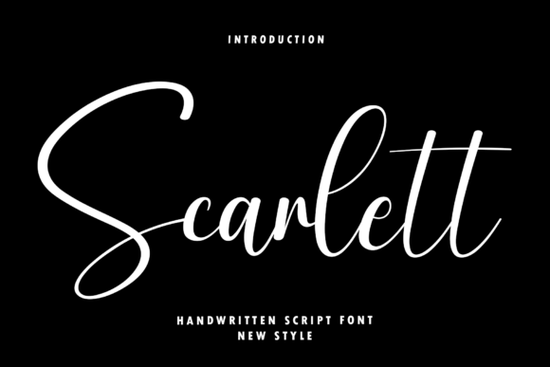
If you've been searching for a script font that looks like a real handwritten signature but still feels polished, the Scarlett Font is worth a close look. It's a modern calligraphy-style typeface with tall ascenders, sweeping loops, and a natural flow that reads as both elegant and personal. Whether you're working on wedding invitations, a brand identity, or POD designs, this font fills a gap that many decorative scripts miss it stays readable while looking luxurious.
What Makes the Scarlett Font Stand Out from Other Script Fonts?
Most script fonts fall into two camps: overly casual or stiff and formal. The Scarlett Font sits right in the middle. Its fluid, signature-like strokes give it a personal, hand-lettered feel without sacrificing clarity. The balanced rhythm between tall letterforms and curved loops means it works well at both large display sizes and smaller body text something many script fonts struggle with.
A few details that set it apart:
- Tall ascenders that add vertical elegance without feeling cramped
- Graceful looping connections that mimic natural handwriting
- A consistent baseline rhythm that keeps paragraphs looking clean
- Smooth, modern curves instead of overly ornate swashes
This combination makes it especially useful for designers who want a luxury script font that doesn't require heavy editing or kerning adjustments to look good.
Who Is This Font Best Suited For?
The Scarlett Font works well for anyone who needs to add a refined, personal touch to their projects. Here are some common use cases:
- Wedding stationery invitations, RSVP cards, envelope addressing, and menu layouts
- Signature logos especially for fashion, beauty, and lifestyle brands
- Social media graphics quotes, story headers, and promotional banners
- Print-on-demand products mugs, tote bags, wall art with a handwritten feel
- Editorial design magazine headers, blog post titles, and book chapter pages
- Greeting cards birthday, thank-you, and holiday cards
How Does It Compare to Similar Fonts?
Each of these has its own character, but the Scarlett Font remains a strong choice when you need that signature-style elegance without going too far in any one direction.